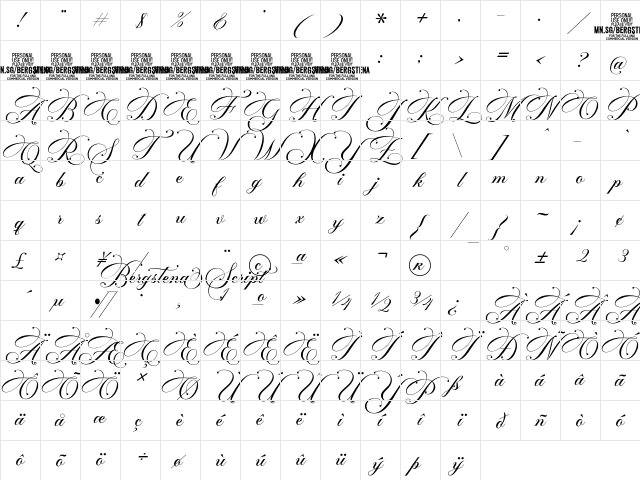
Complete Bergstena Decorated PERSONAL USE Regular glyph index. Displaying only characters natively supported by Bergstena Decorated PERSONAL USE Regular font.
Bergstena Decorated PERSONAL USE is a composed and adaptable typeface that performs quietly and consistently across a wide range of design contexts.